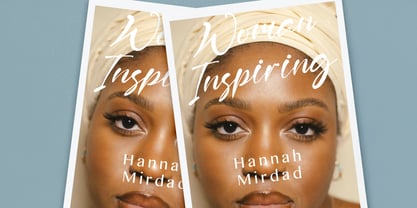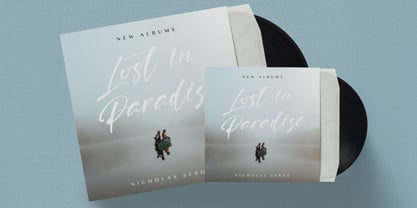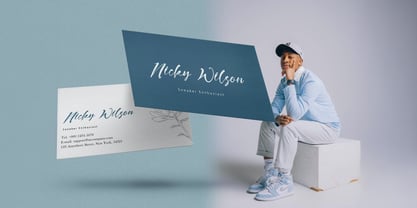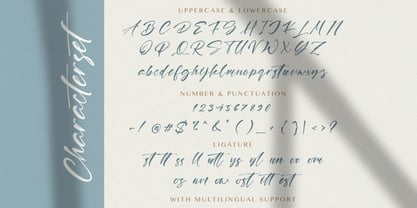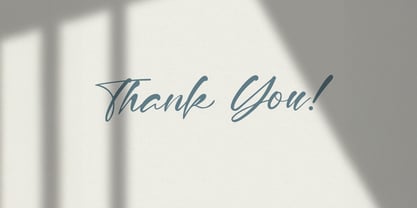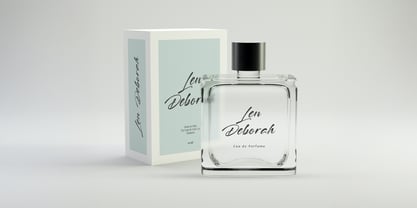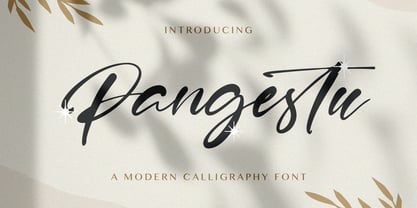
The Pangestu Font Family was designed by Virgiawan Listanto and published by Stringlabs Creative Studio. Pangestu contains 1 styles. More about this family
Elevate your designs with the timeless elegance of Pangestu, a graceful calligraphy font inspired by traditional handwriting and refined strokes. Each letter flows smoothly with delicate curves and luxurious swashes, evoking a sense of classic beauty and heartfelt expression.
Designers: Virgiawan Listanto
Foundry: Stringlabs Creative Studio
Pangestu